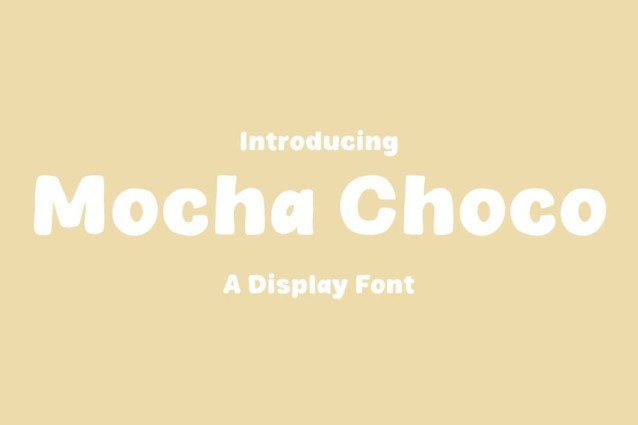
Mocha Choco Font
Mocha Choco Font is a simple and modern display font suitable for quotes, logos, headings, titles, and many more. Use it on any of your creative projects, and your designs will become outstanding!